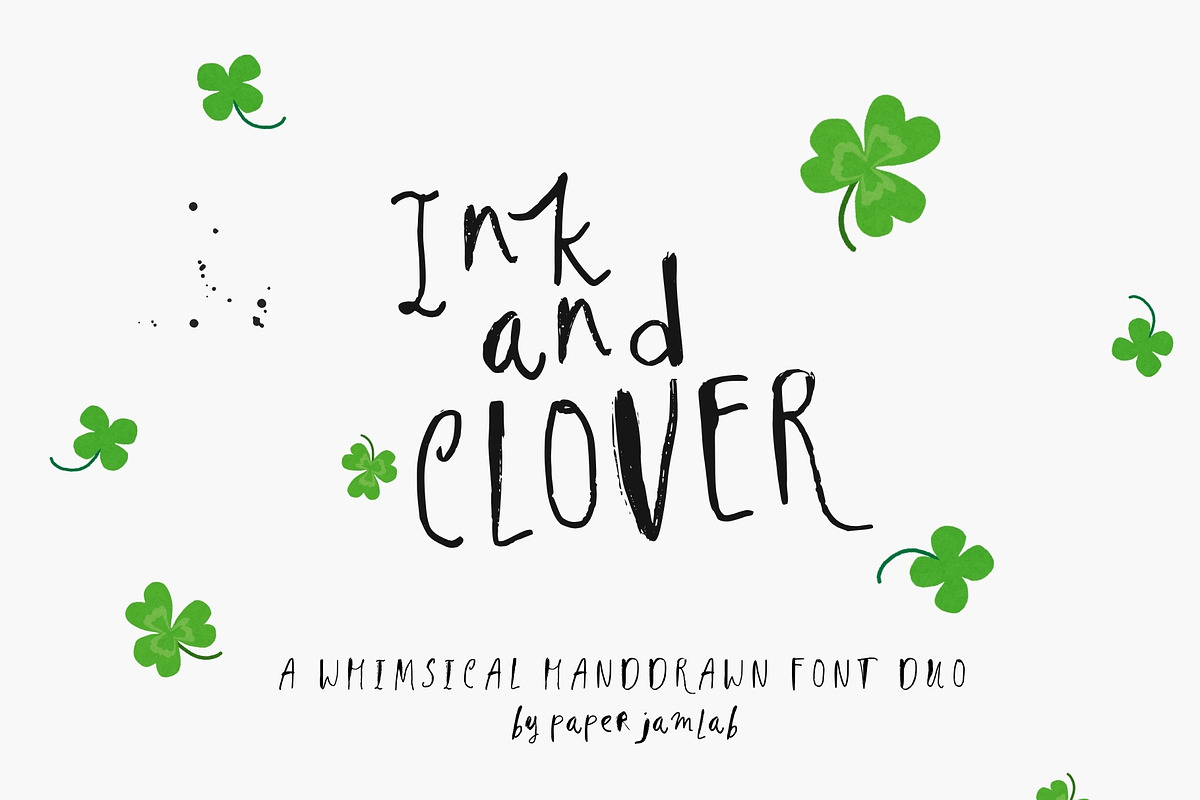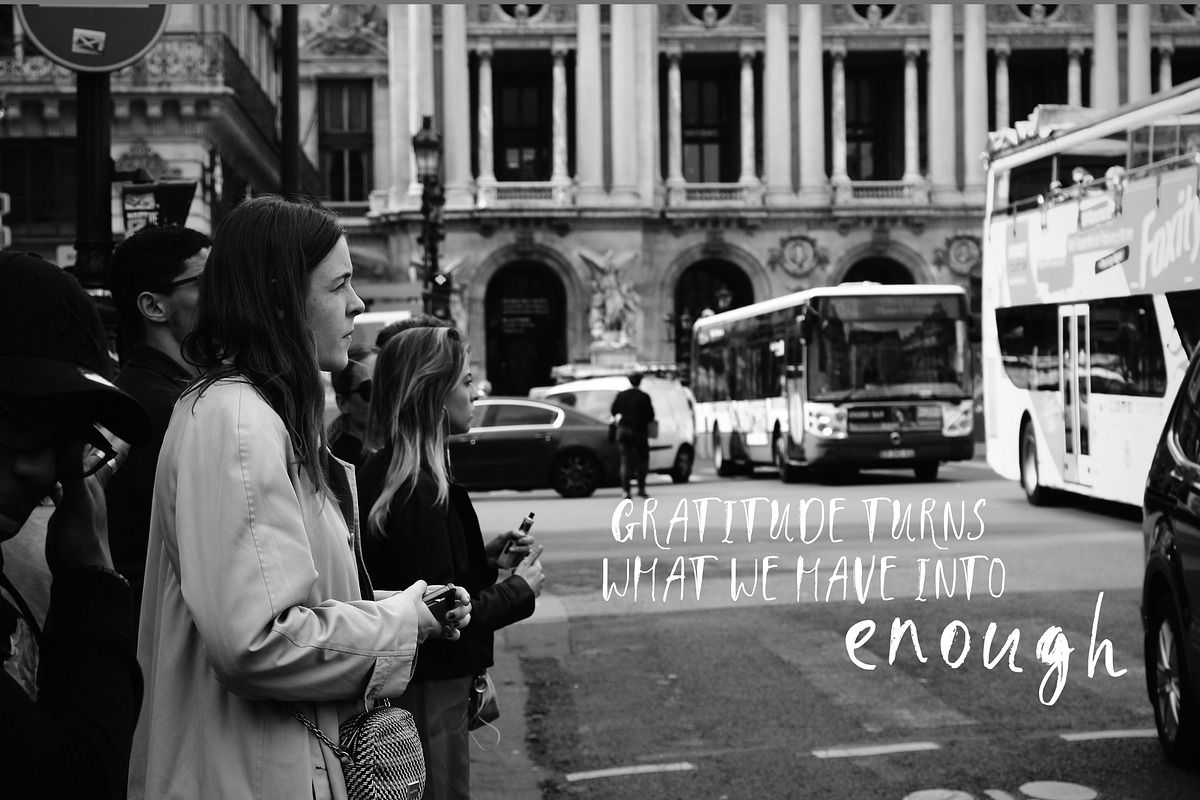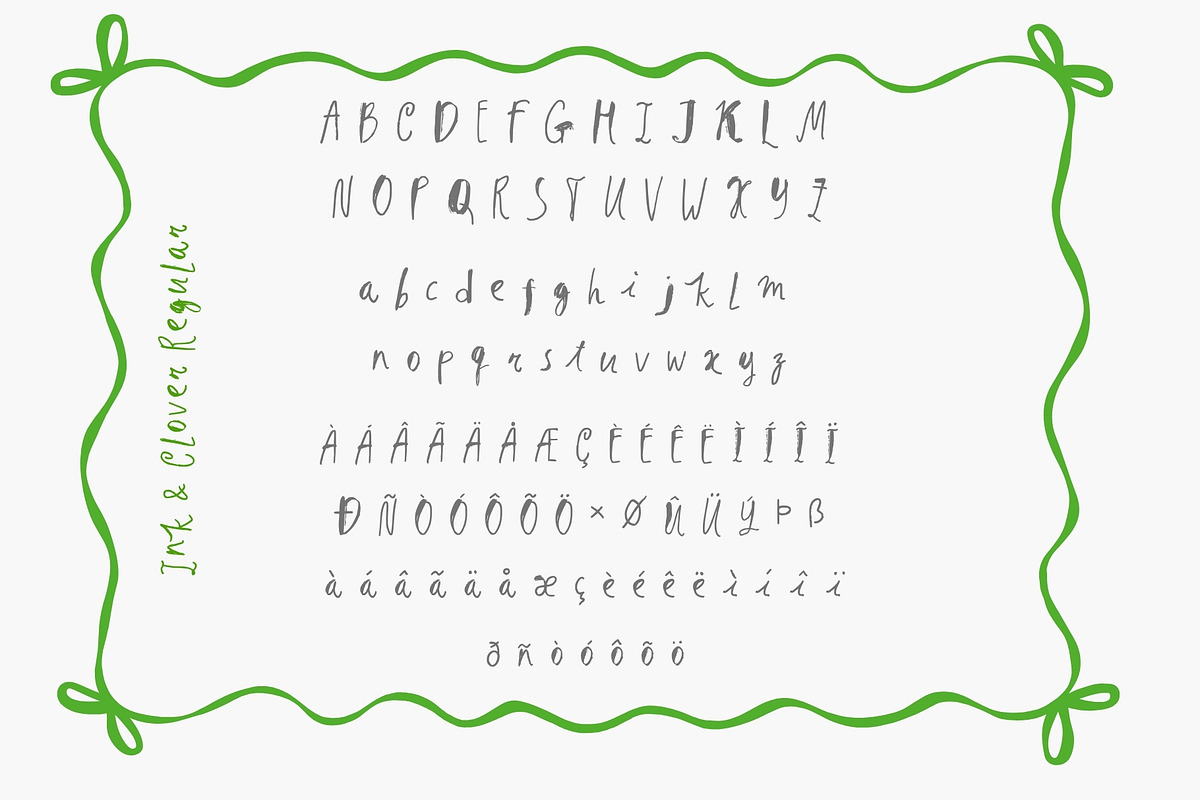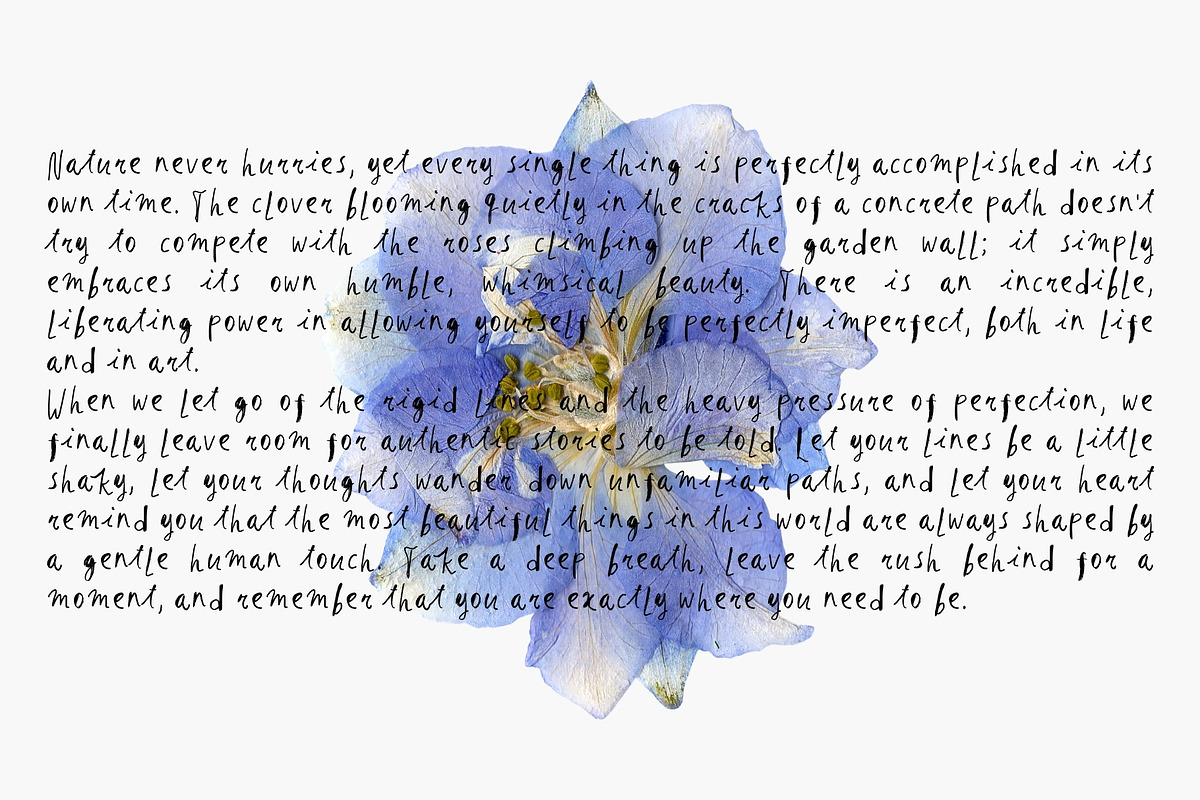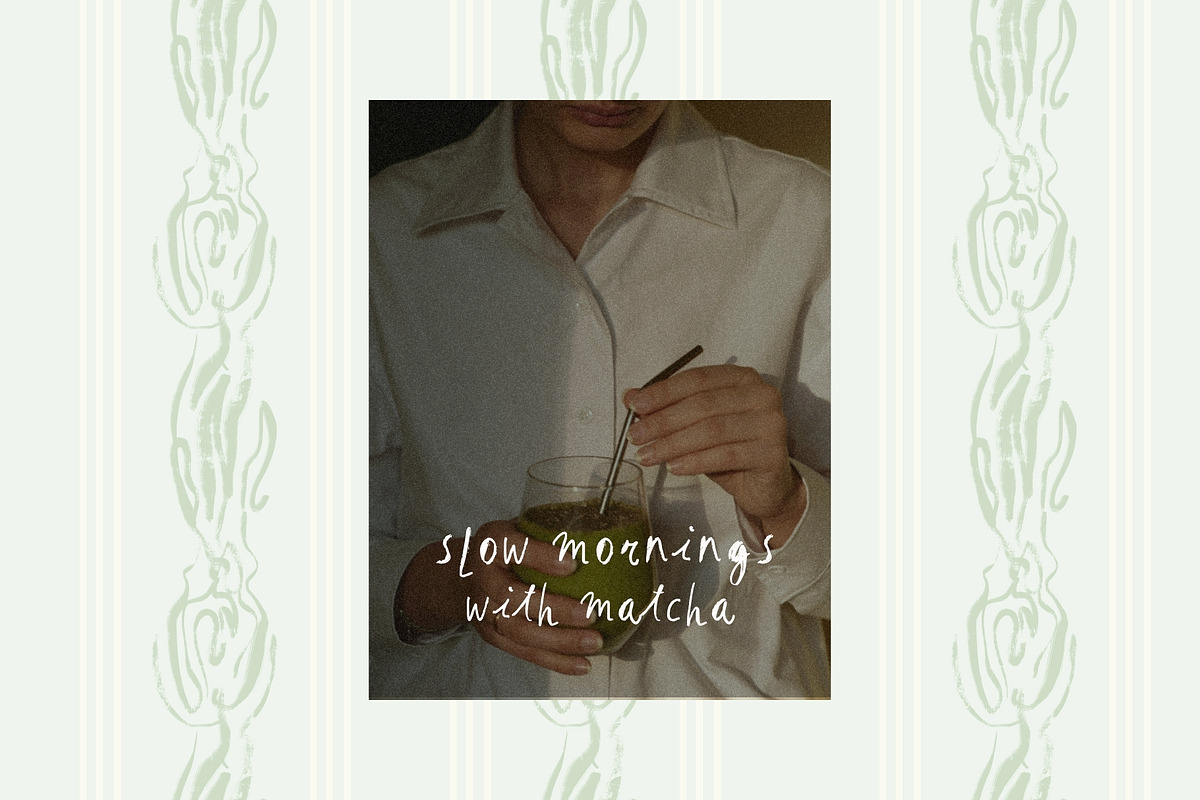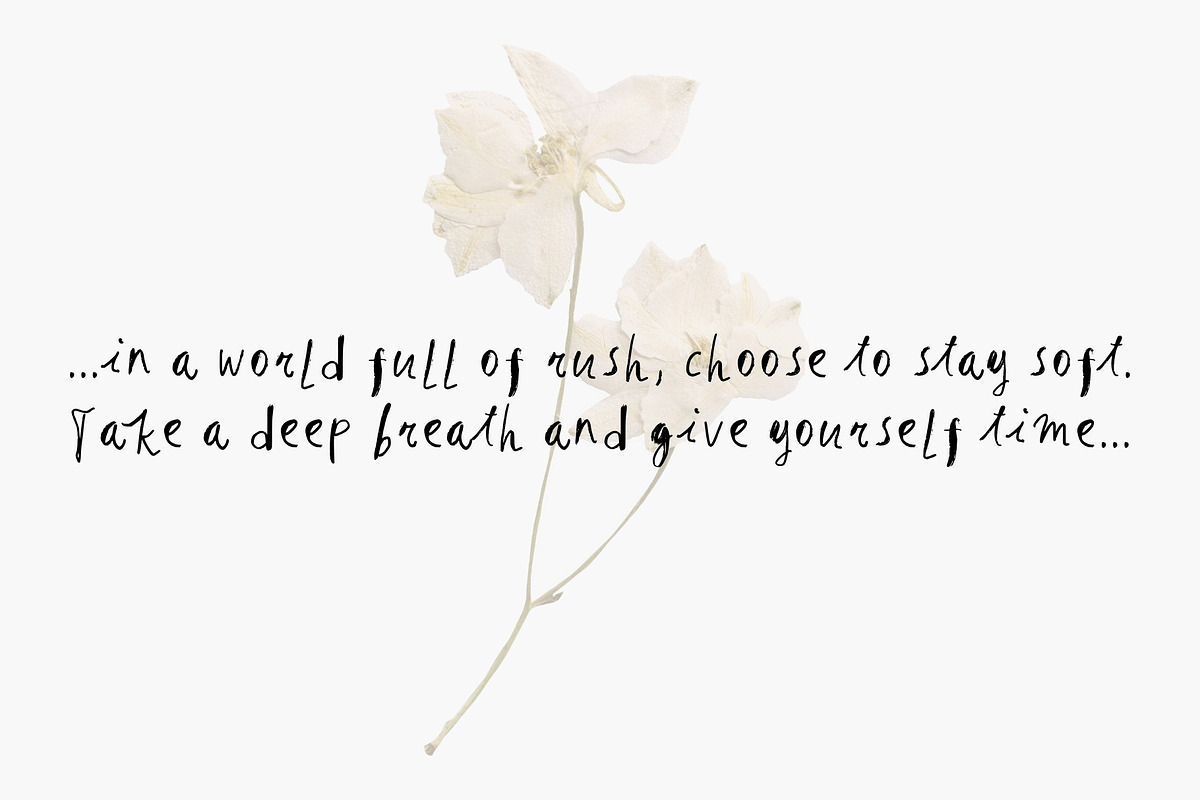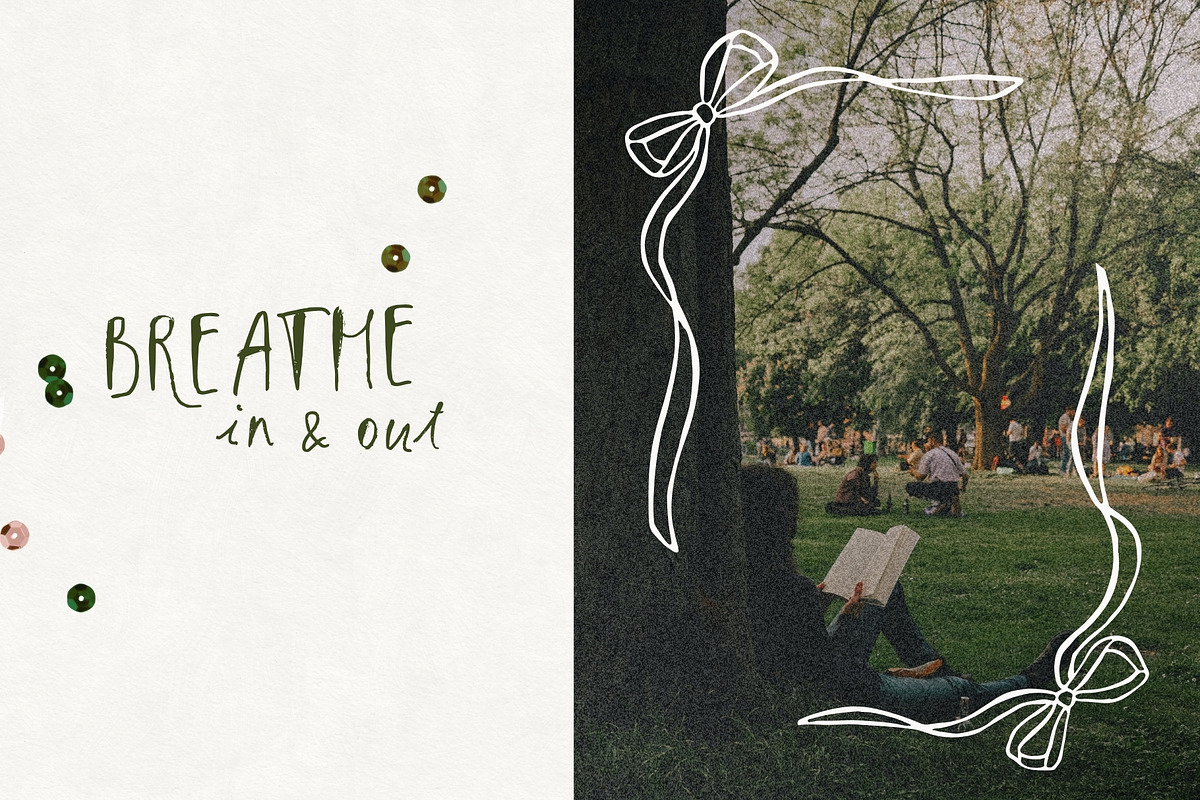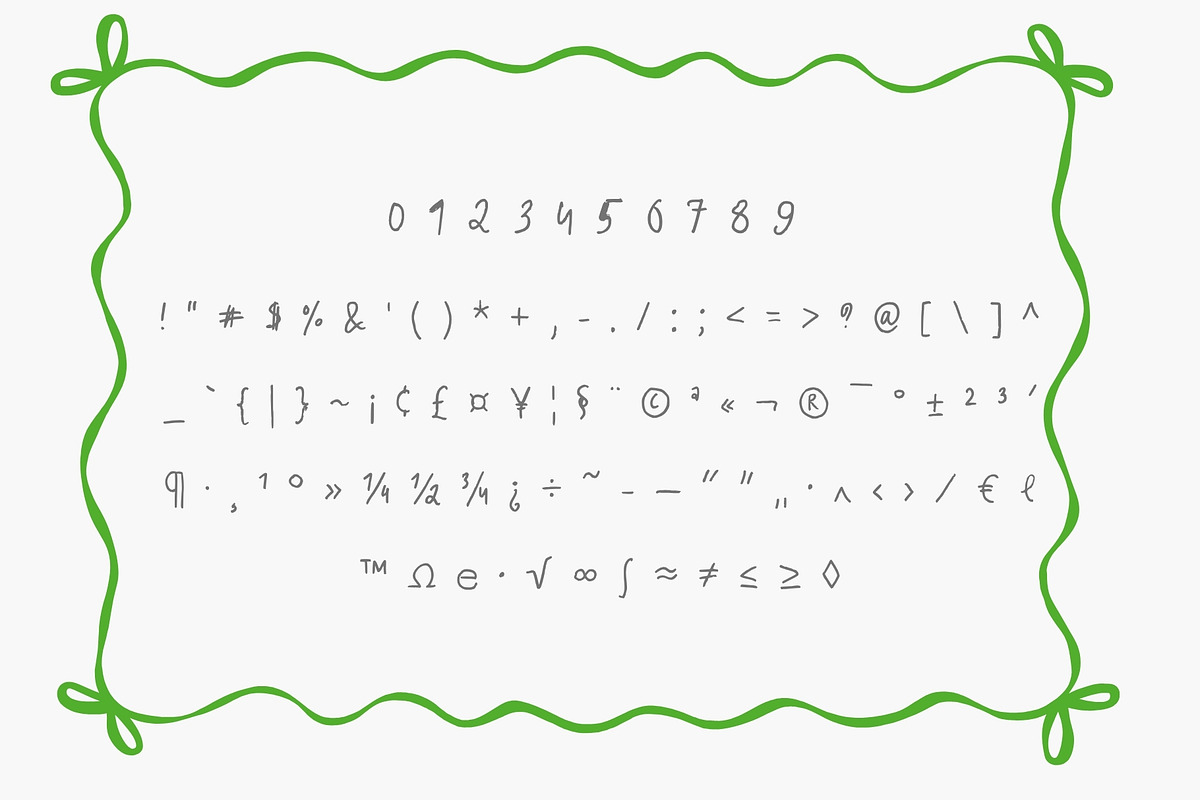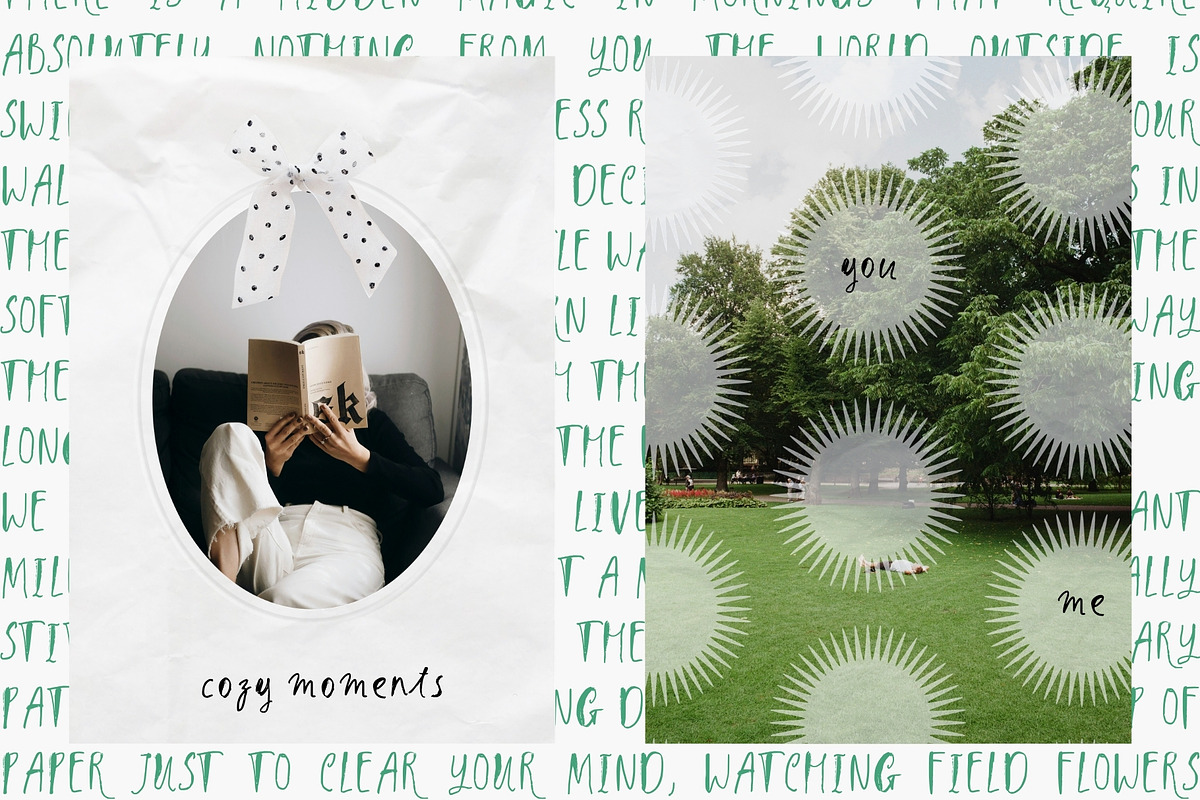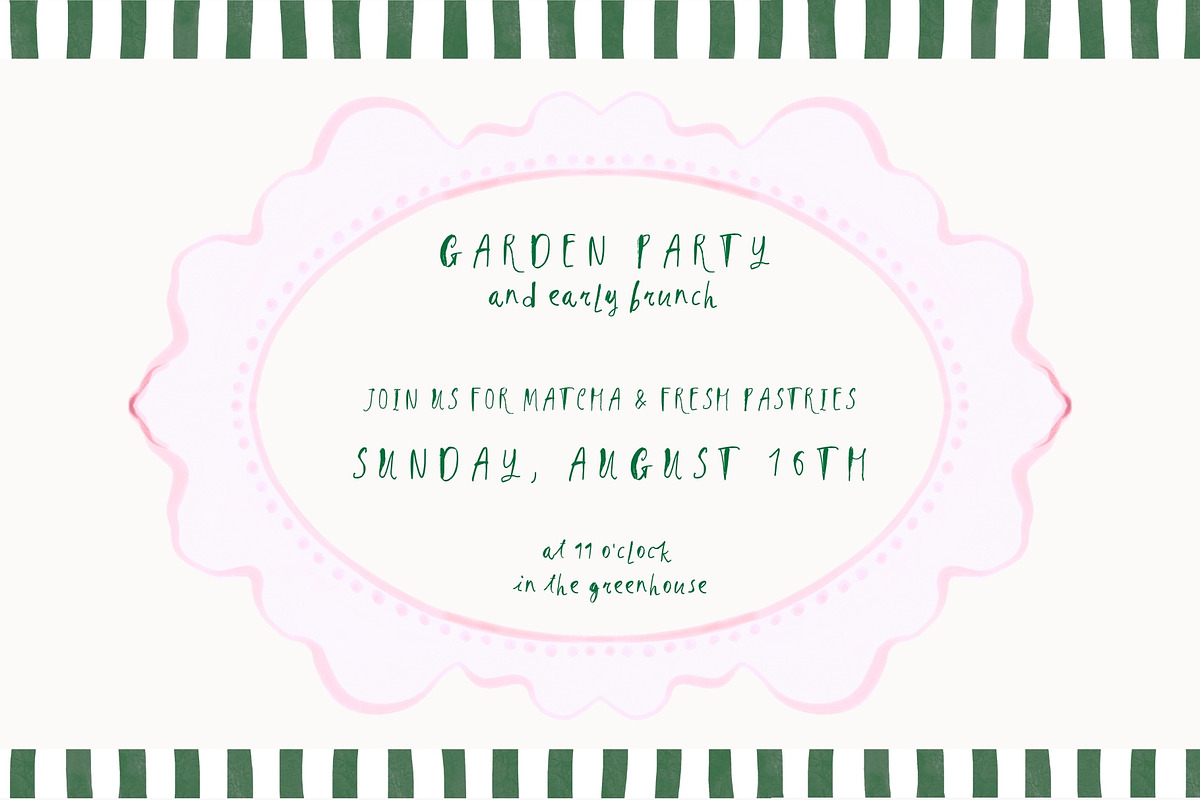
Ink & Clover. A Whimsical Font Duo
Ink & Clover is a perfectly imperfect font duo thoughtfully crafted for slow living aesthetics, cozy lifestyle branding, and modern indie editorial designs.
This pack features two beautifully contrasting fonts designed to complement each other flawlessly:
Ink (Caps): A bold, hand-drawn all-caps font with realistic, raw-textured ink edges that give your headlines an authentic crafted feel.
Clover (Script): A delicate, flowy, and casual brush script that connects seamlessly, bringing an elegant, organic rhythm to longer texts and quotes.
Whether you are designing premium product packaging, romantic wedding invitations, social media templates, or cozy journaling pages, Ink & Clover provides endless creative possibilities.
Lifestyle & Cozy Branding
Product Packaging (candles, soaps, tea blends)
Editorial layouts & indie magazines
Greeting cards, quotes, and recipe books
Pinterest boards and Instagram stories
Let your designs grow wild, free, and beautifully authentic with Ink & Clover!